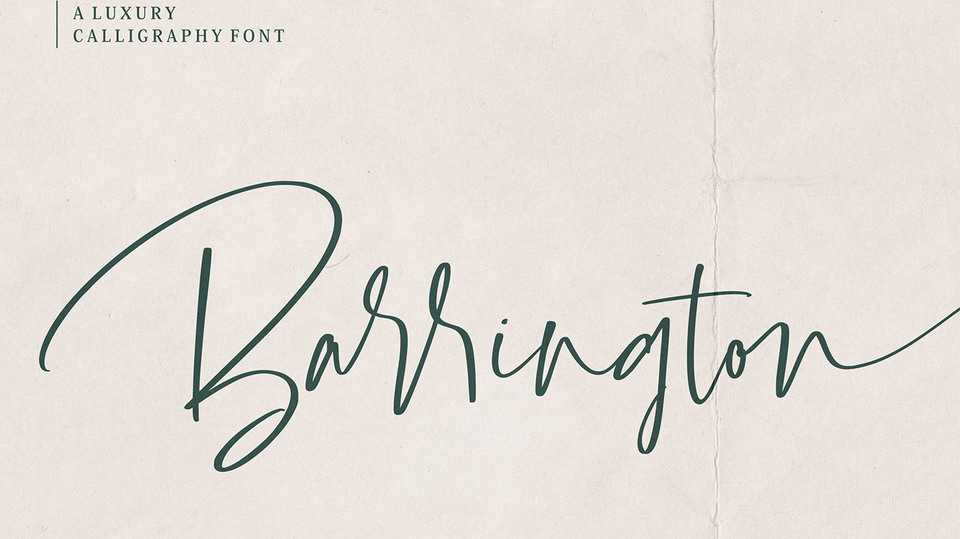
Download Barrington font, a signature script with relaxed style and carries the impression of luxury. Barrington perfect for branding & logo projects, also suitable for title on your article or book cover, stationary and many more.